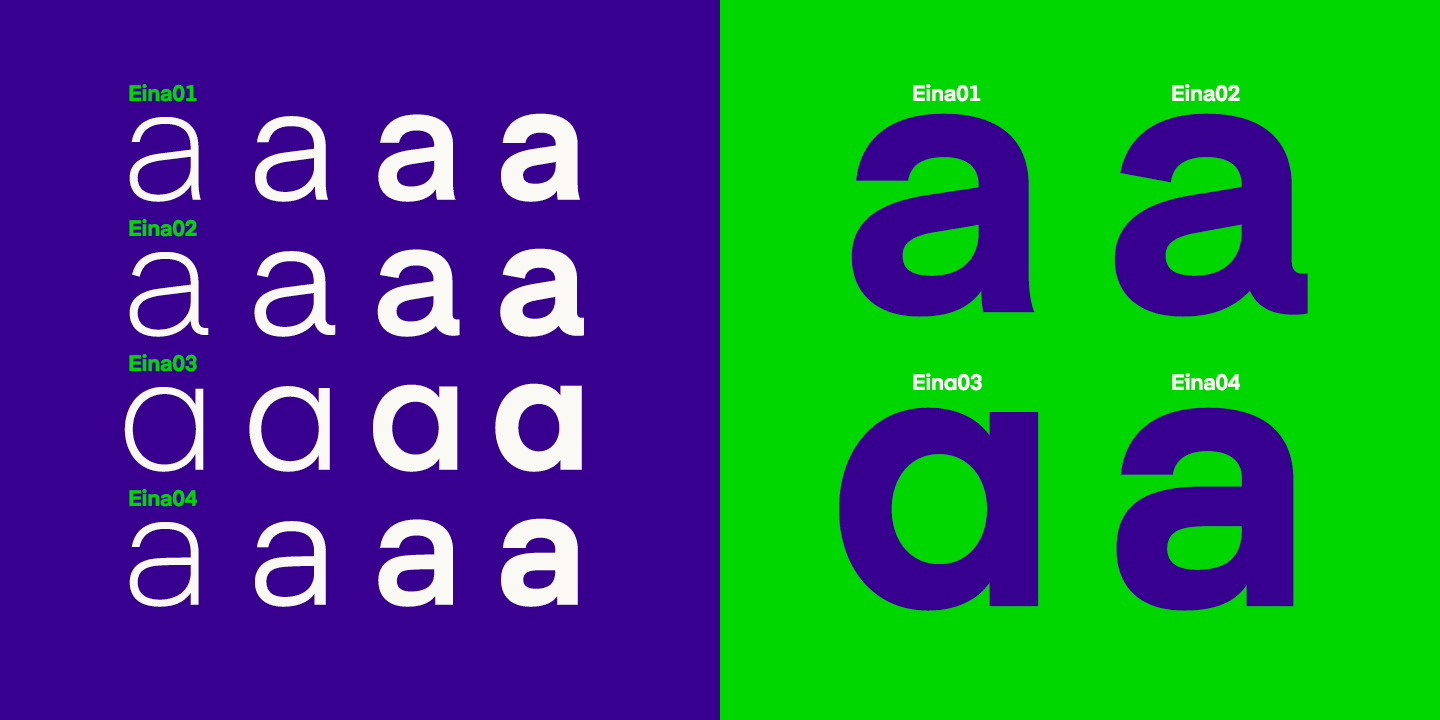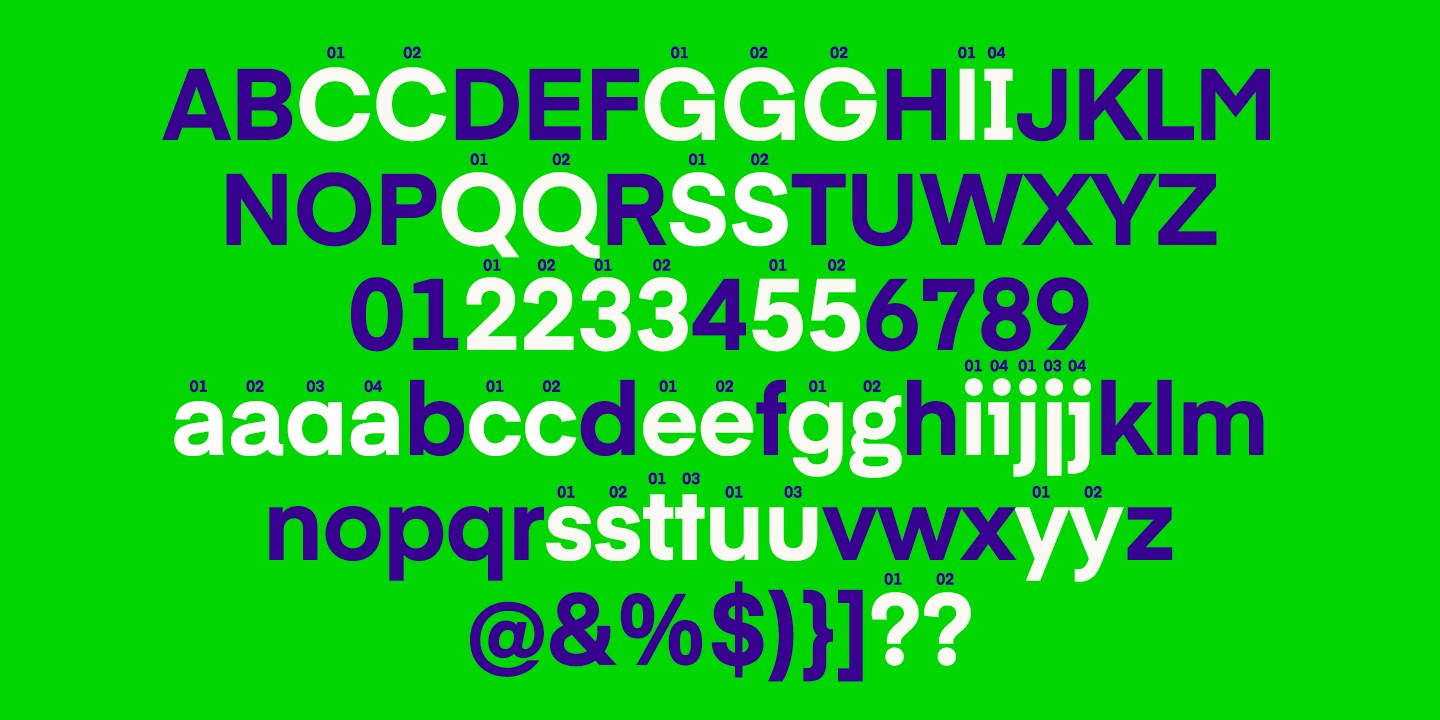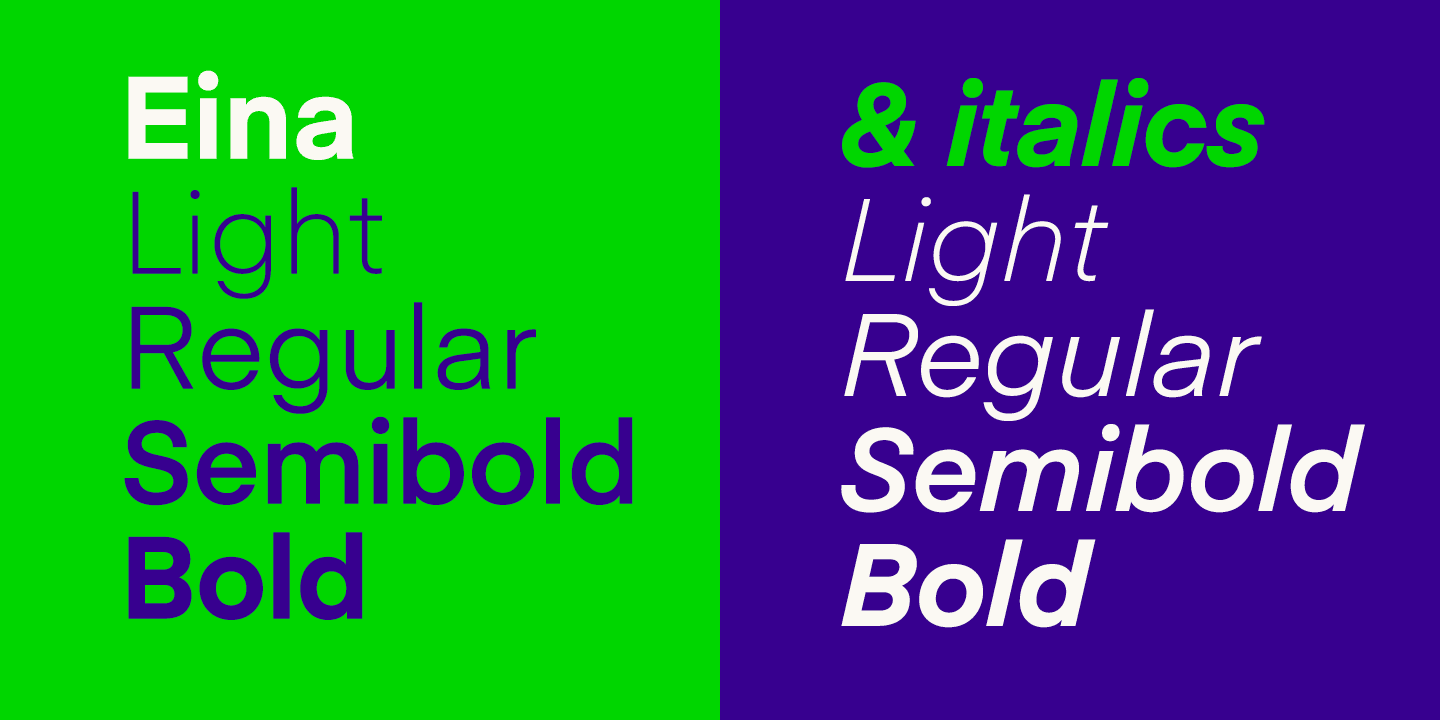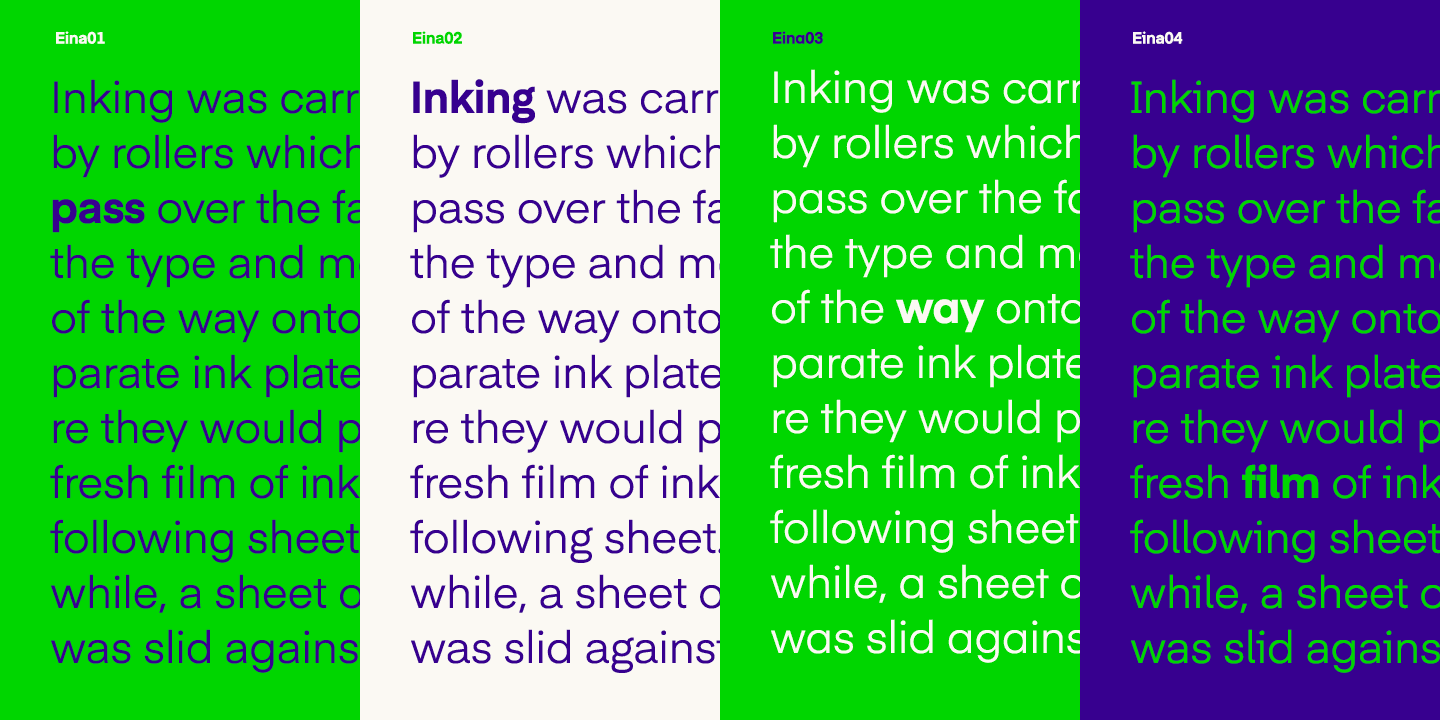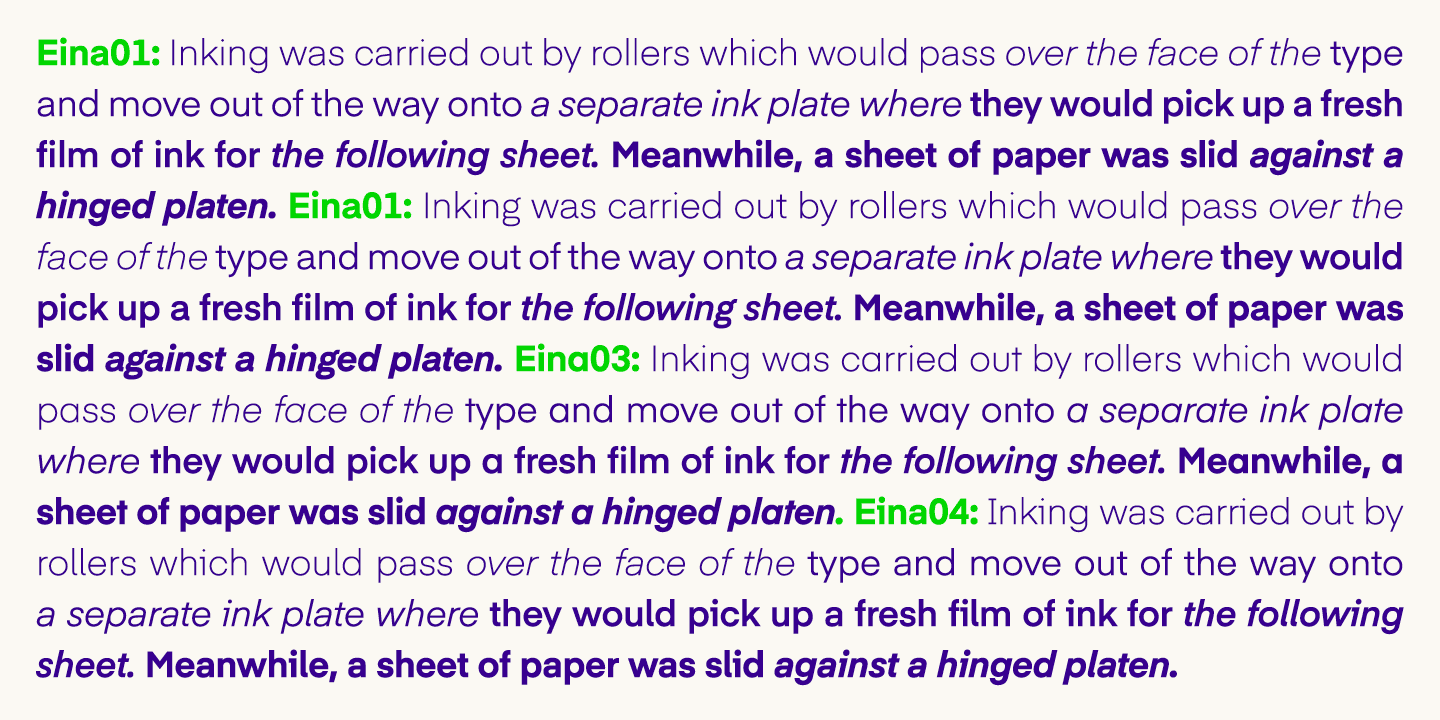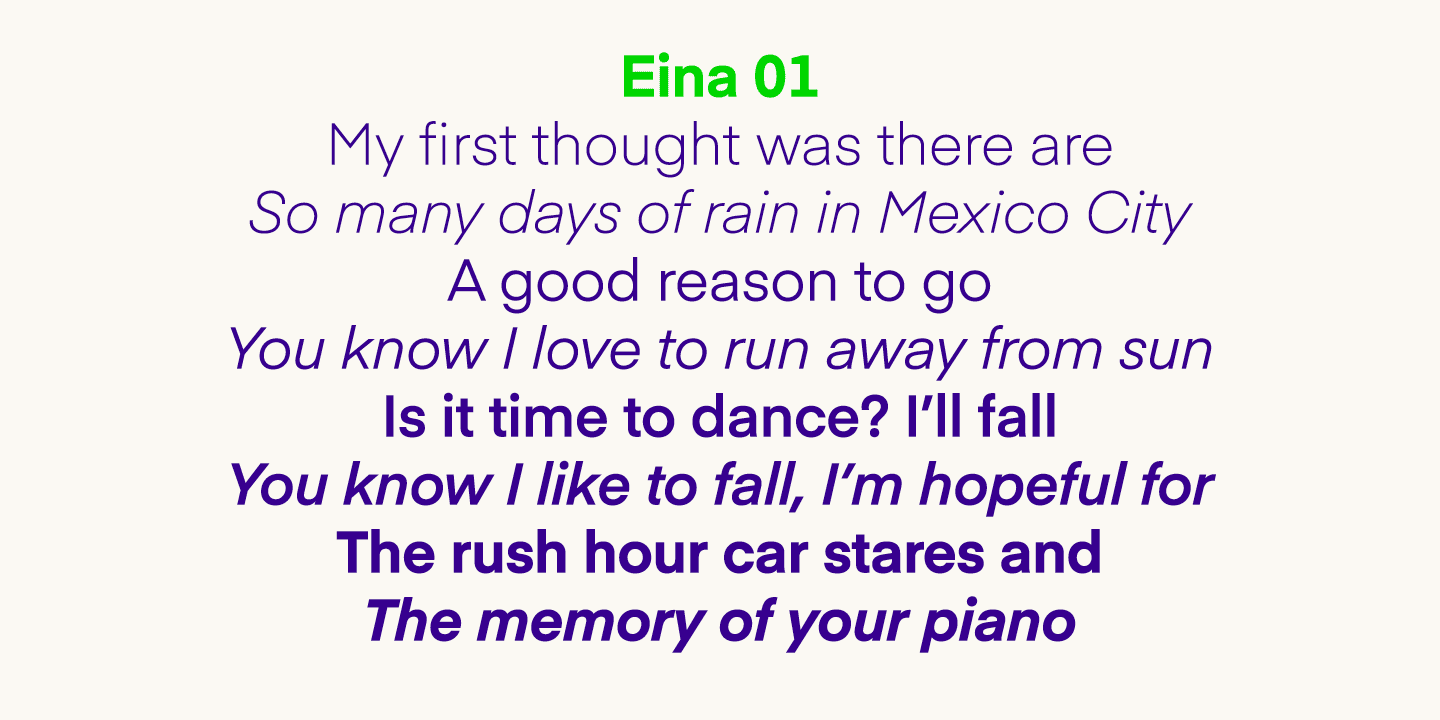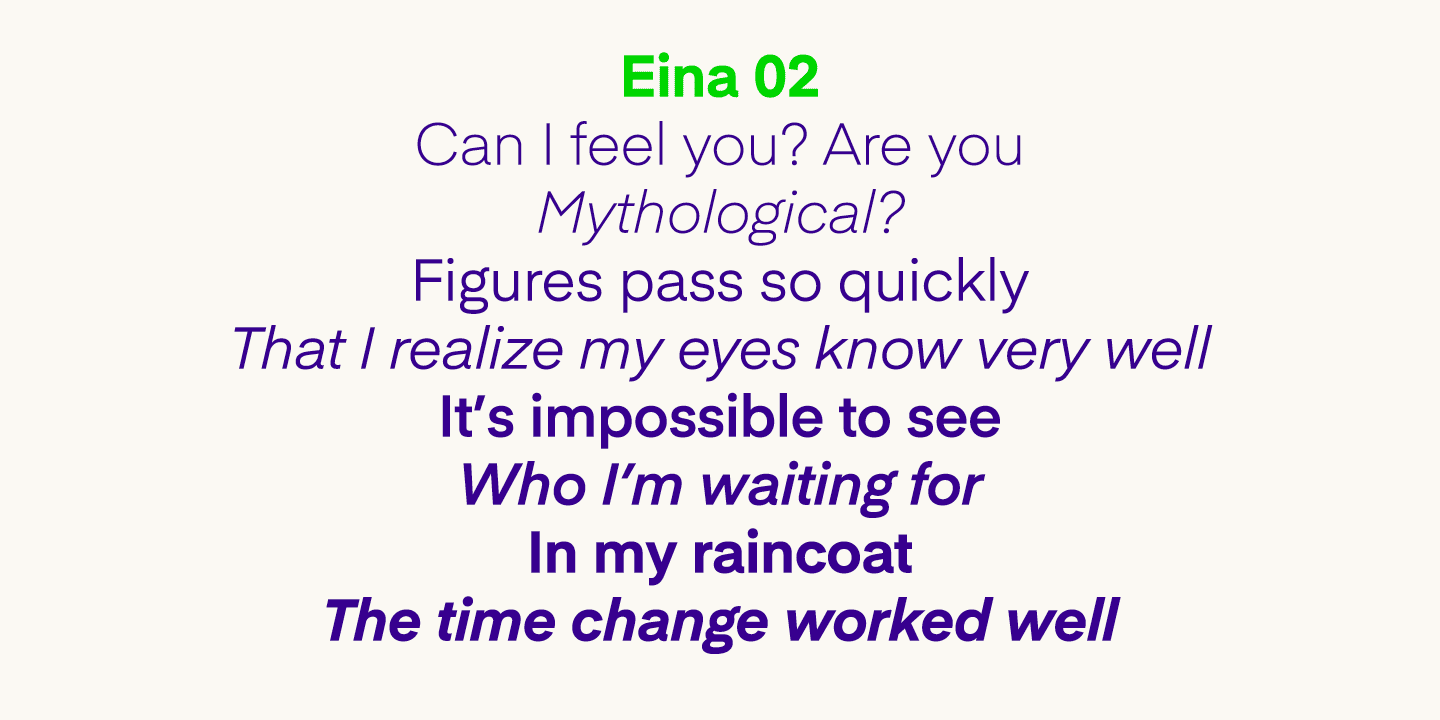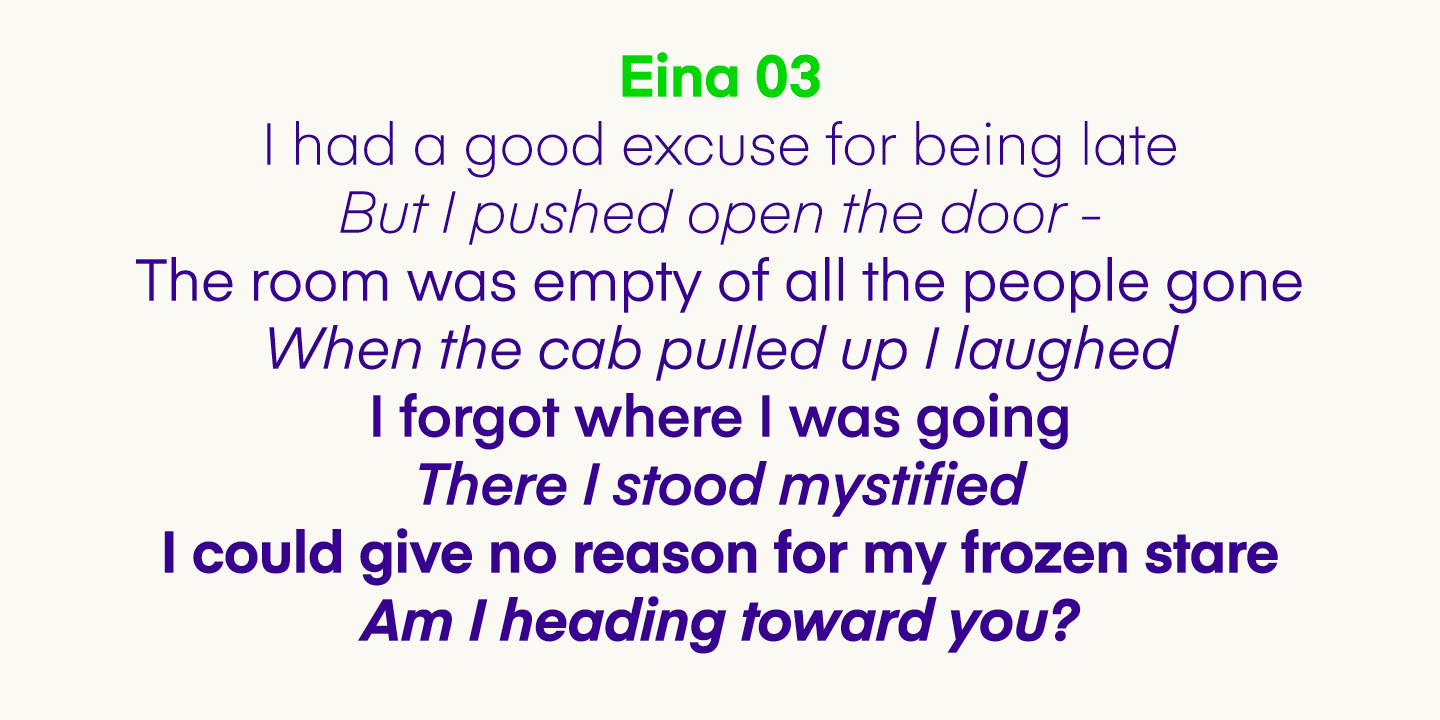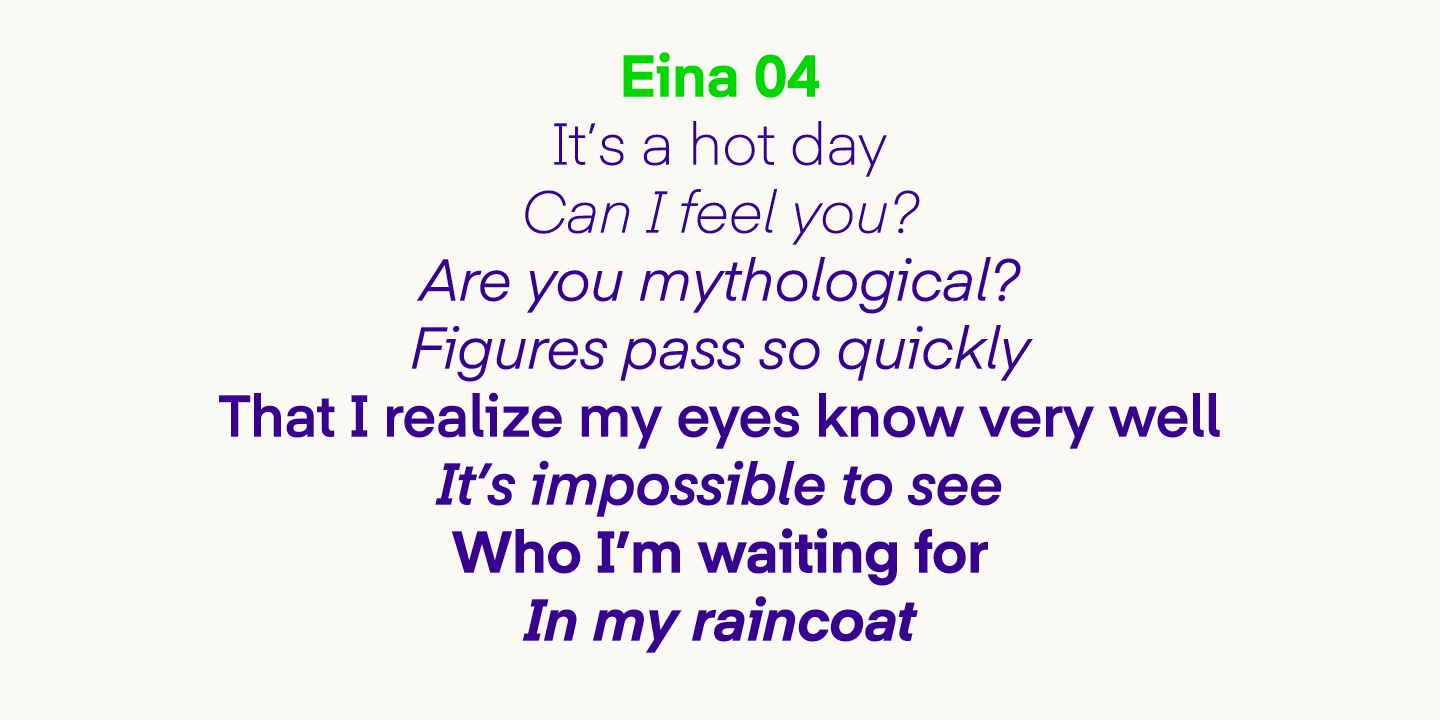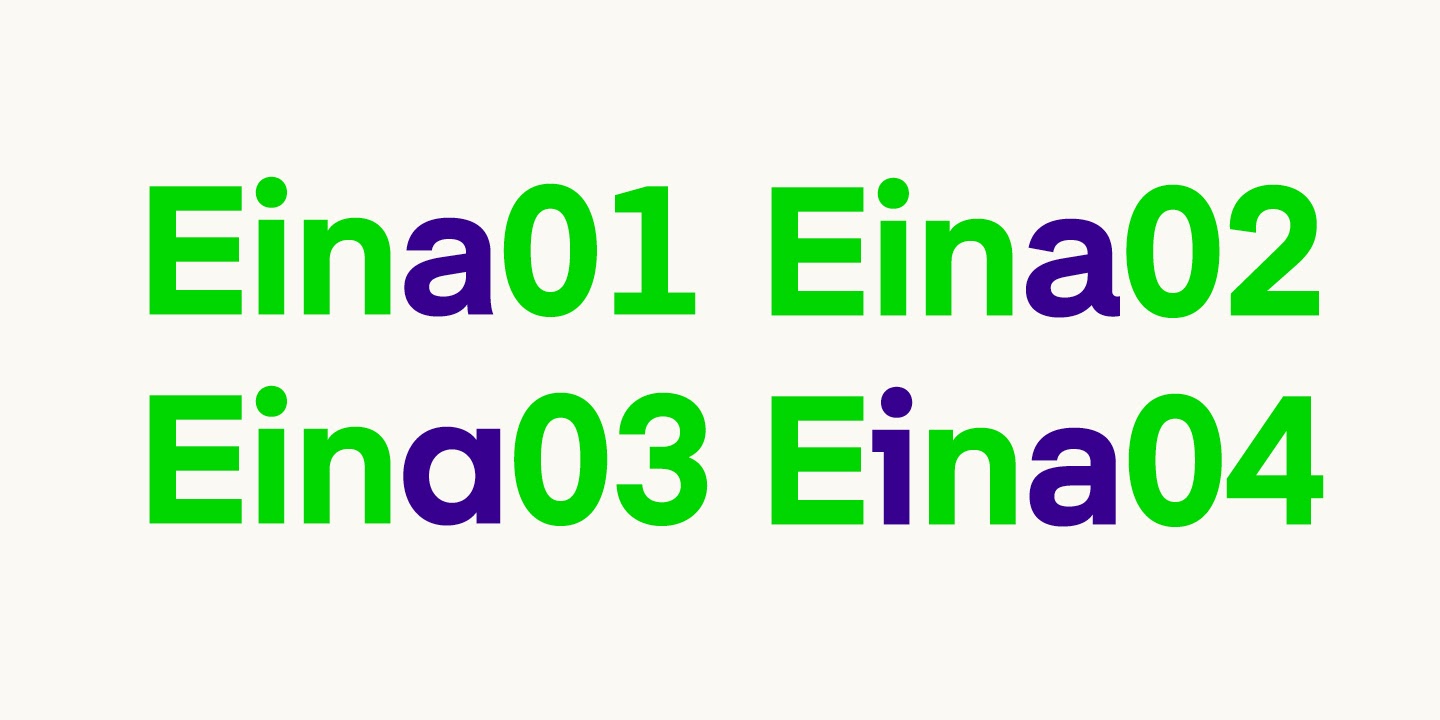
Eina is a simple and easy to use font set for any design. All fonts are meticulously designed and flexible in use, including 32 styles arranged into four categories: rational, humanist, geometric & industrial.
Each font category contains four weights with their respective italics. The font set is suitable for almost any design that needs a simple font used for long text.